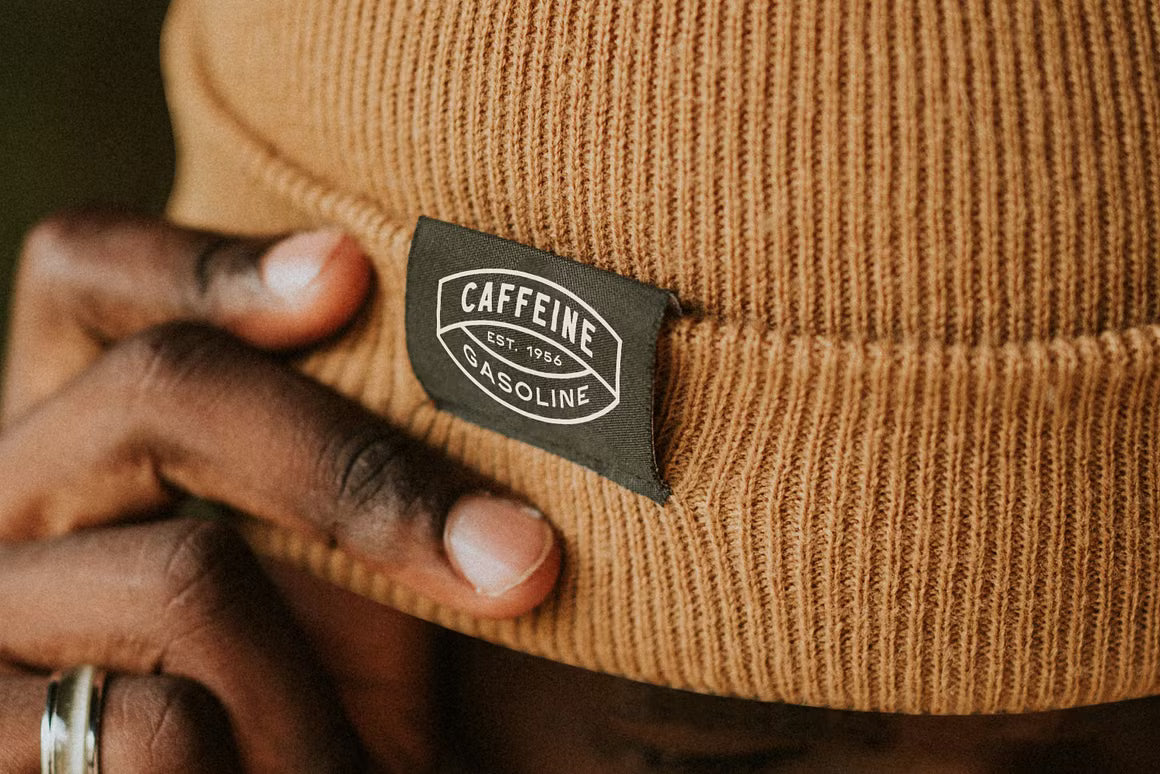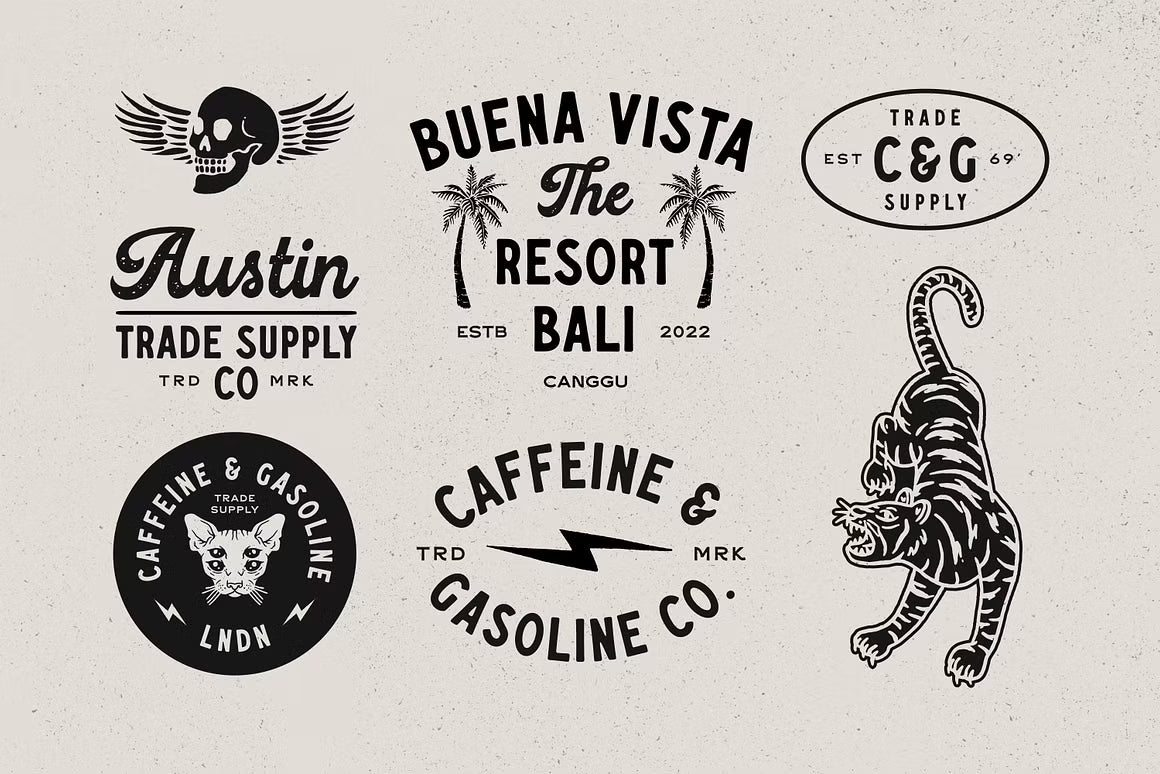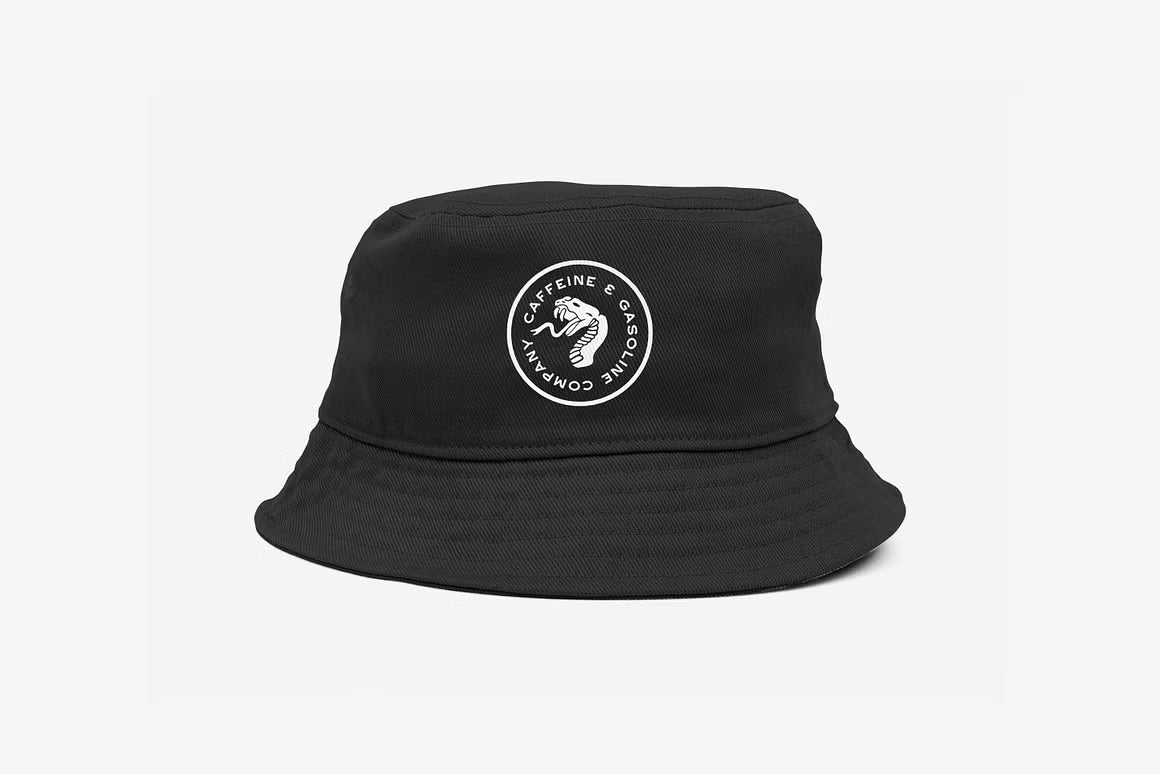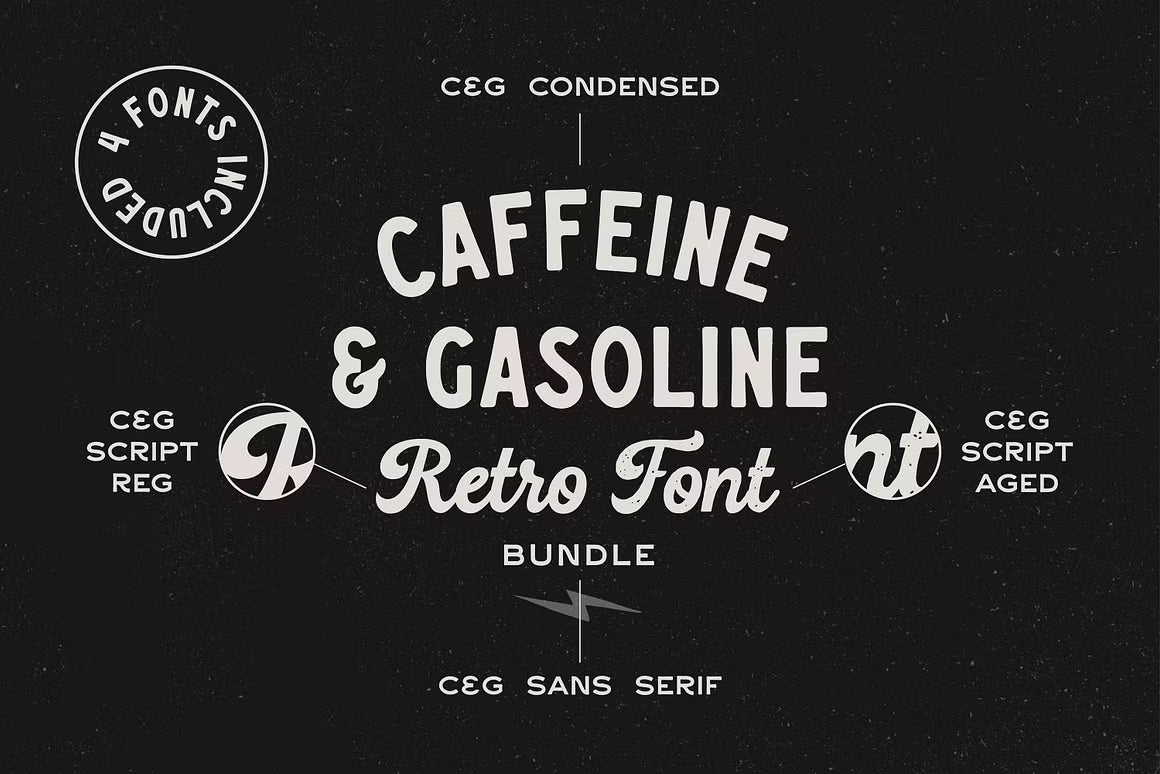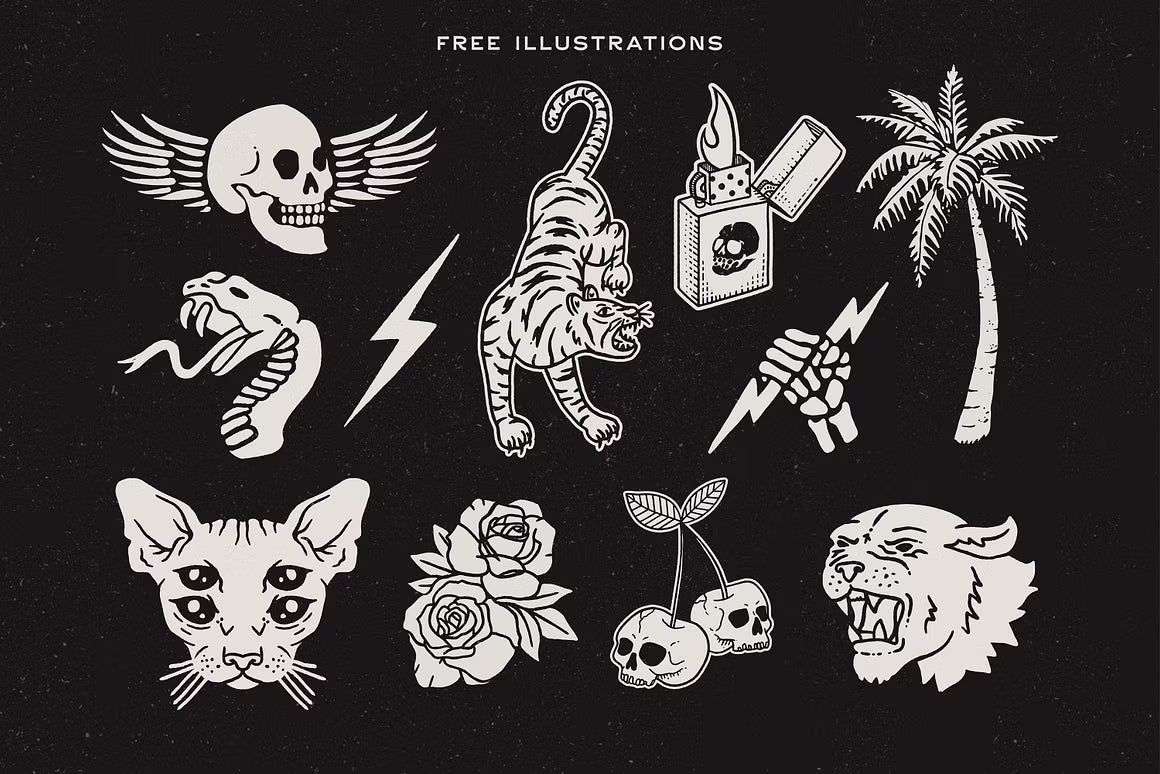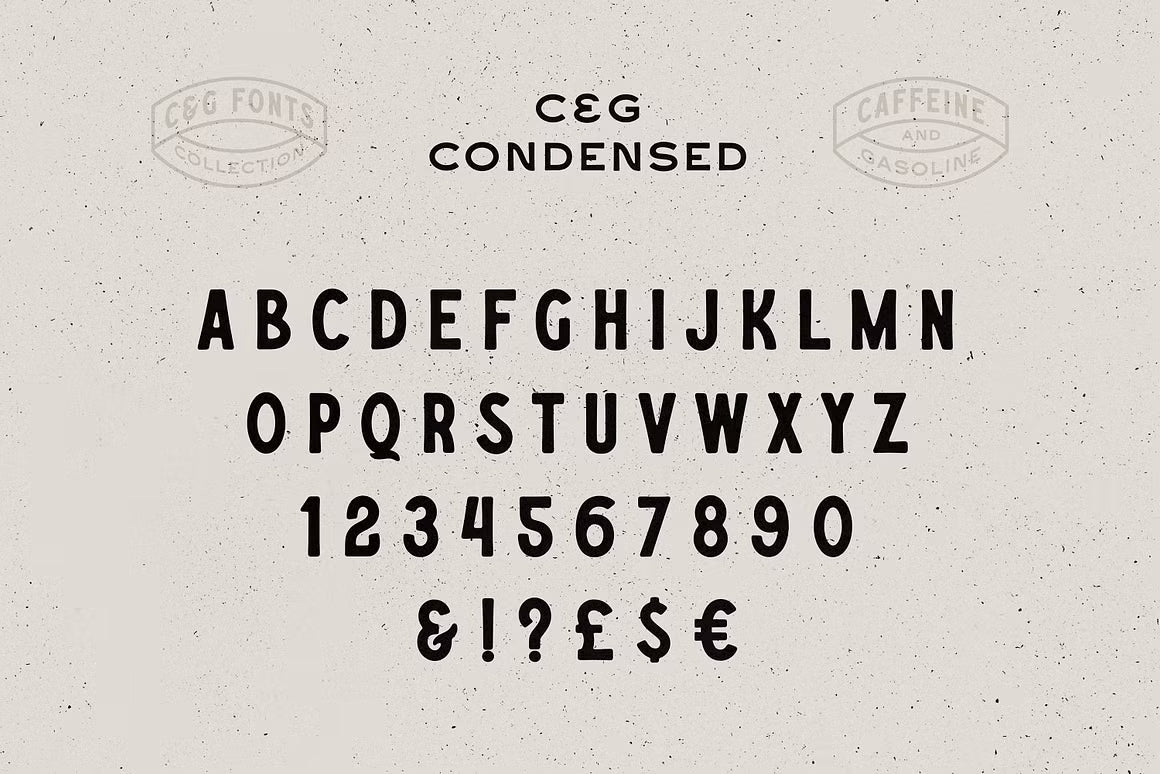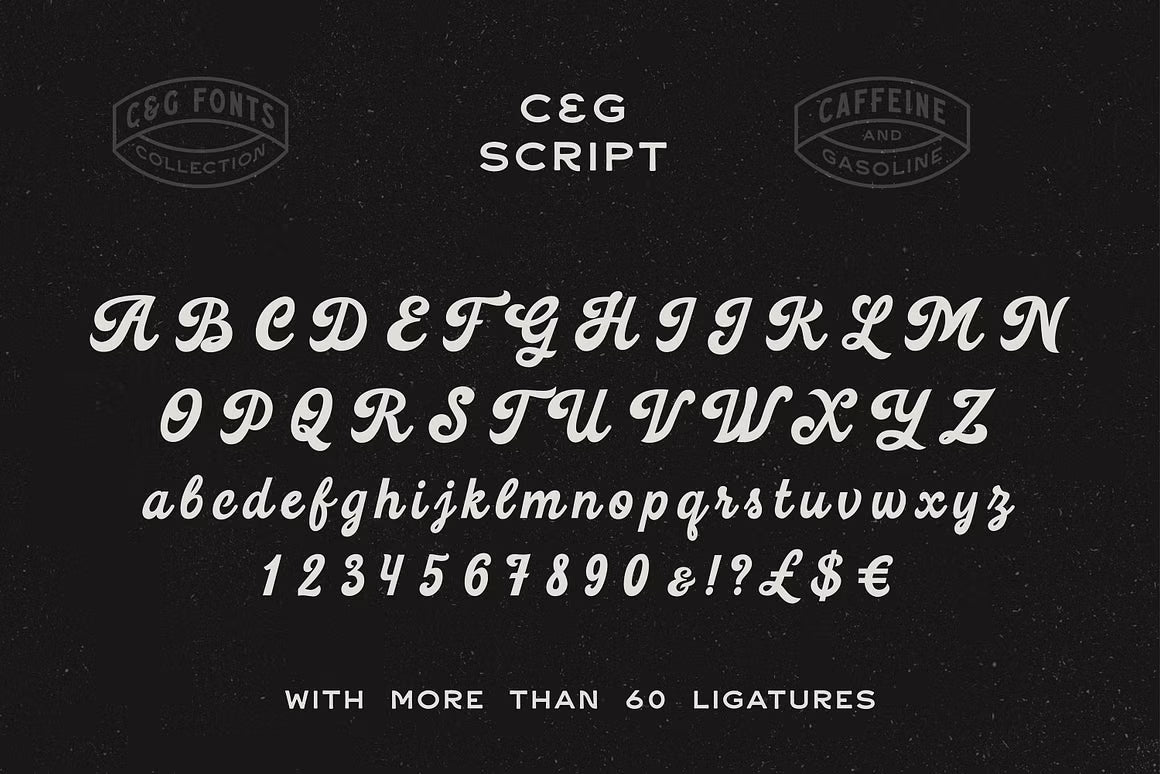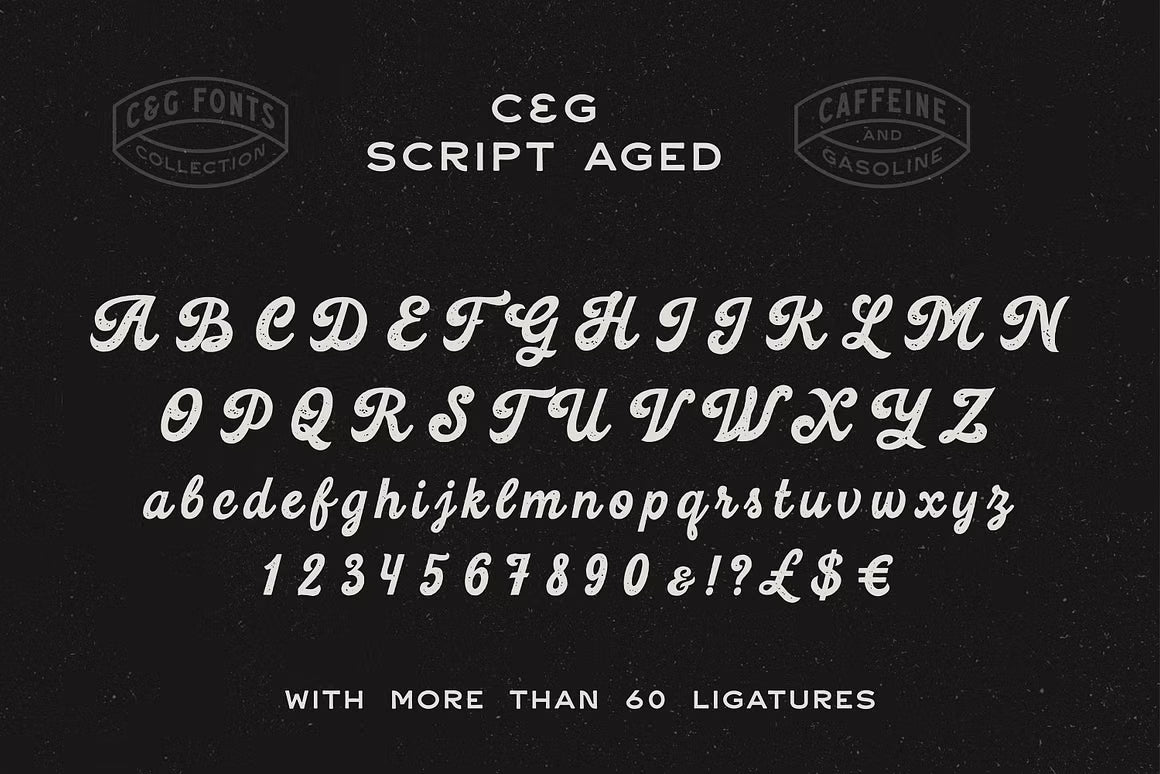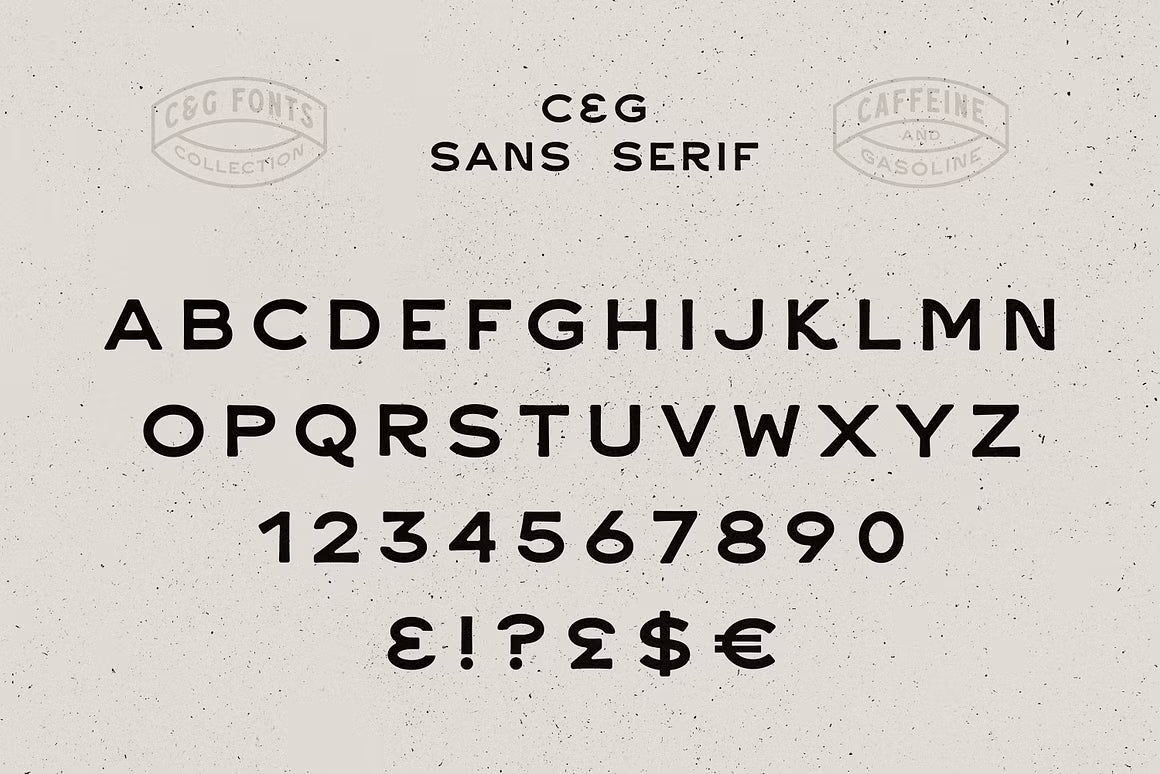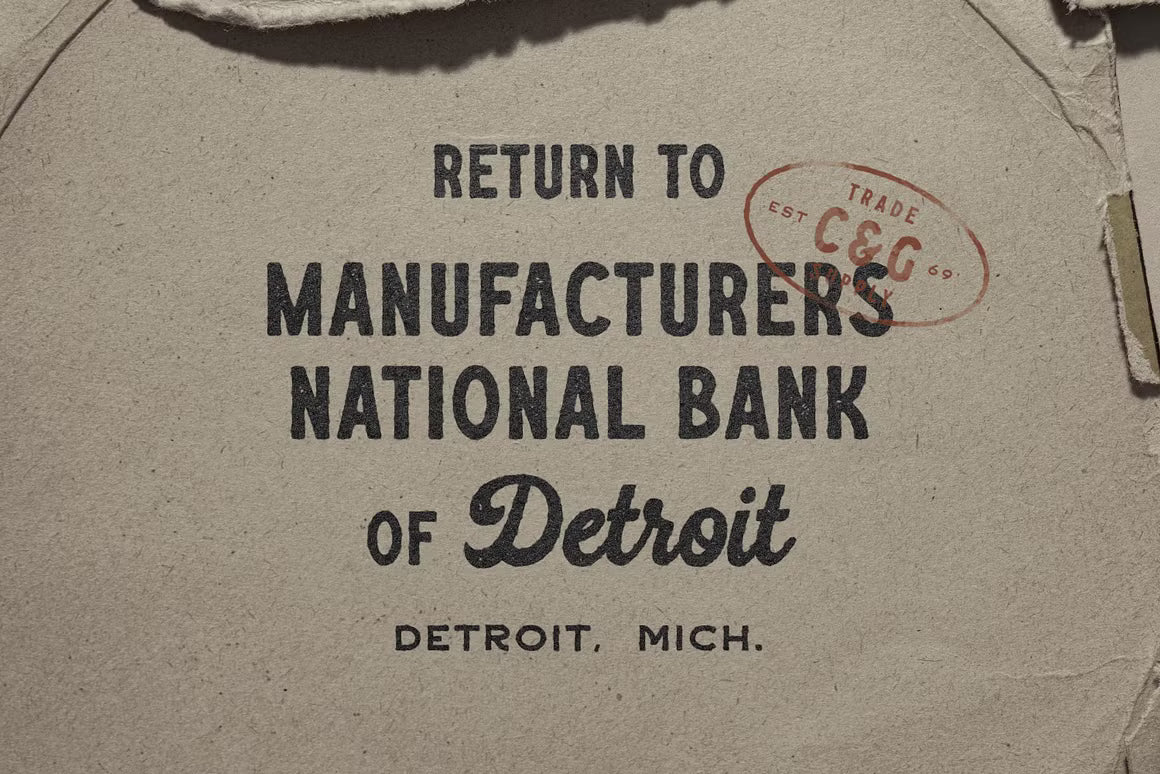
Caffeine & Gasoline Fonts + Extras is a bold vintage-inspired font bundle that brings retro attitude and character to your designs. This pack includes three versatile fonts — an all-caps Sans Serif, an all-caps Condensed, and a dynamic hand-made Script font (with Regular & Aged versions) — plus over 60 ligatures for authentic vintage flair.
Perfect for apparel, posters, product labels, social media graphics, branding, and more. To boost your creativity even further, the bundle also includes 10 premade logo templates and 10 hand-made illustrations.
A complete retro toolkit for designers who love that classic Caffeine & Gasoline energy.